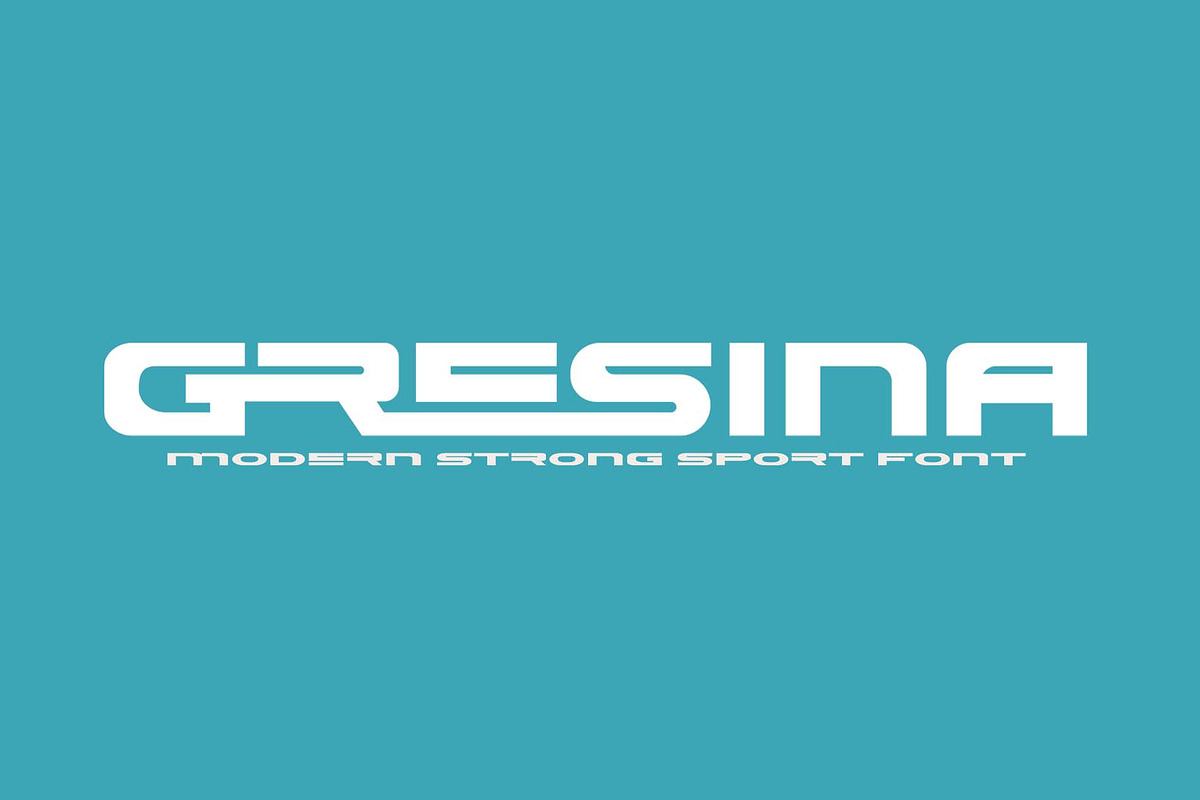
You must purchase this font for commercial use. However, you can download Gresina - Sport Modern Font Free Download for testing purposes. Gresina is a bold and modern font designed with sports and athletic branding in mind. With its strong, dynamic letterforms and geometric precision, this font is perfect for logos, team branding, sports posters, merchandise, and any project that needs a high-energy, professional look.
The sleek, sporty design of Gresina ensures your text stands out, making it ideal for both print and digital media. Whether you're designing for a sports team, an athletic brand, or a fitness campaign, this font will bring strength and modernity to your typography.